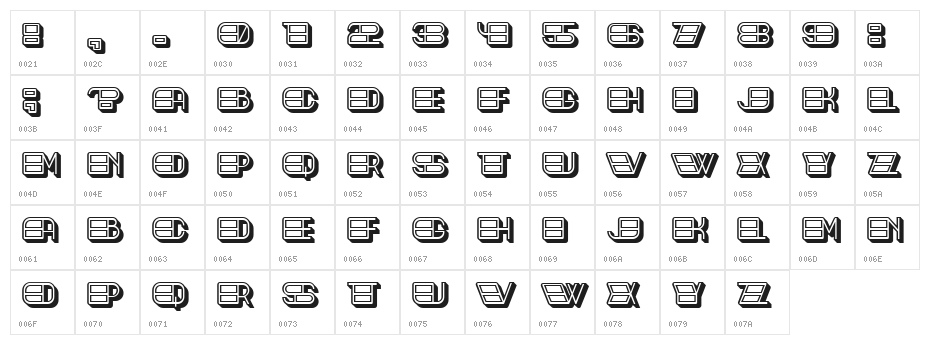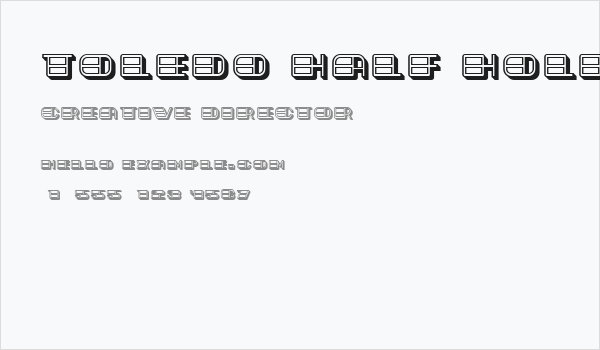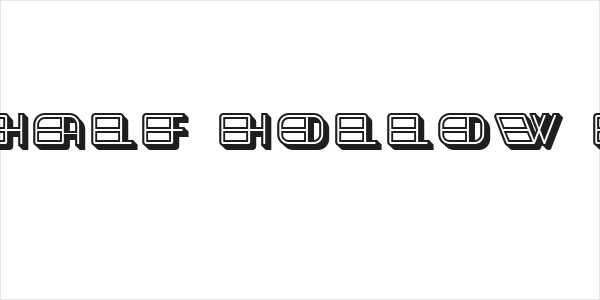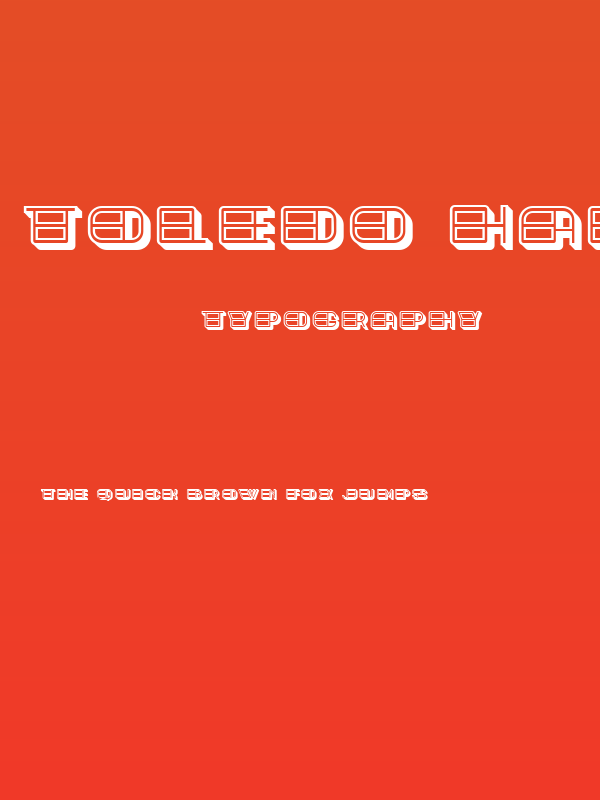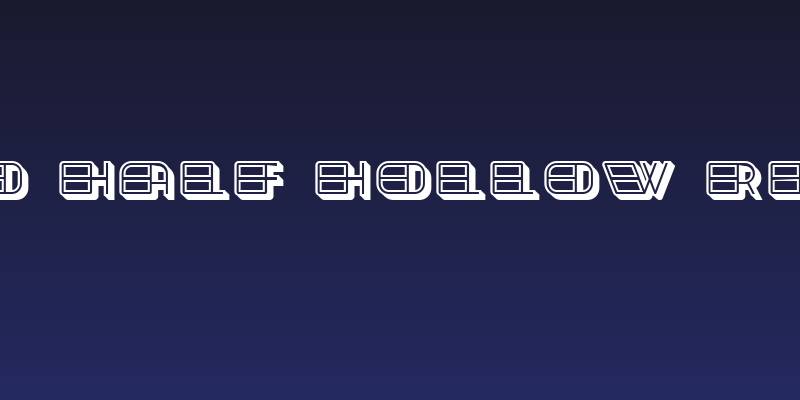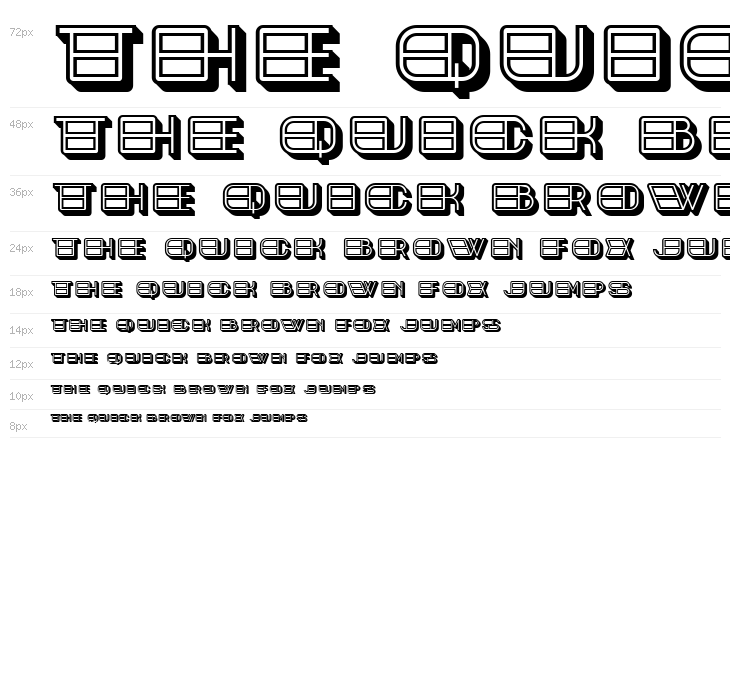
Toledo Half Hollow Regular Font
Toledo Half Hollow Regular Description
This font features a bold, geometric design with a distinct hollow effect, creating a striking visual impact. The characters are constructed with thick outlines and internal negative space, giving them a three-dimensional appearance. The style is consistent across uppercase, lowercase, and numeric characters, maintaining a cohesive look. The unique design elements make it stand out, suitable for projects that require a modern and edgy aesthetic. The special characters are crafted with the same attention to detail, ensuring uniformity throughout the font.
| Proposed Projects | Ideal for branding, posters, and digital artwork where a modern, eye-catching font is needed. |